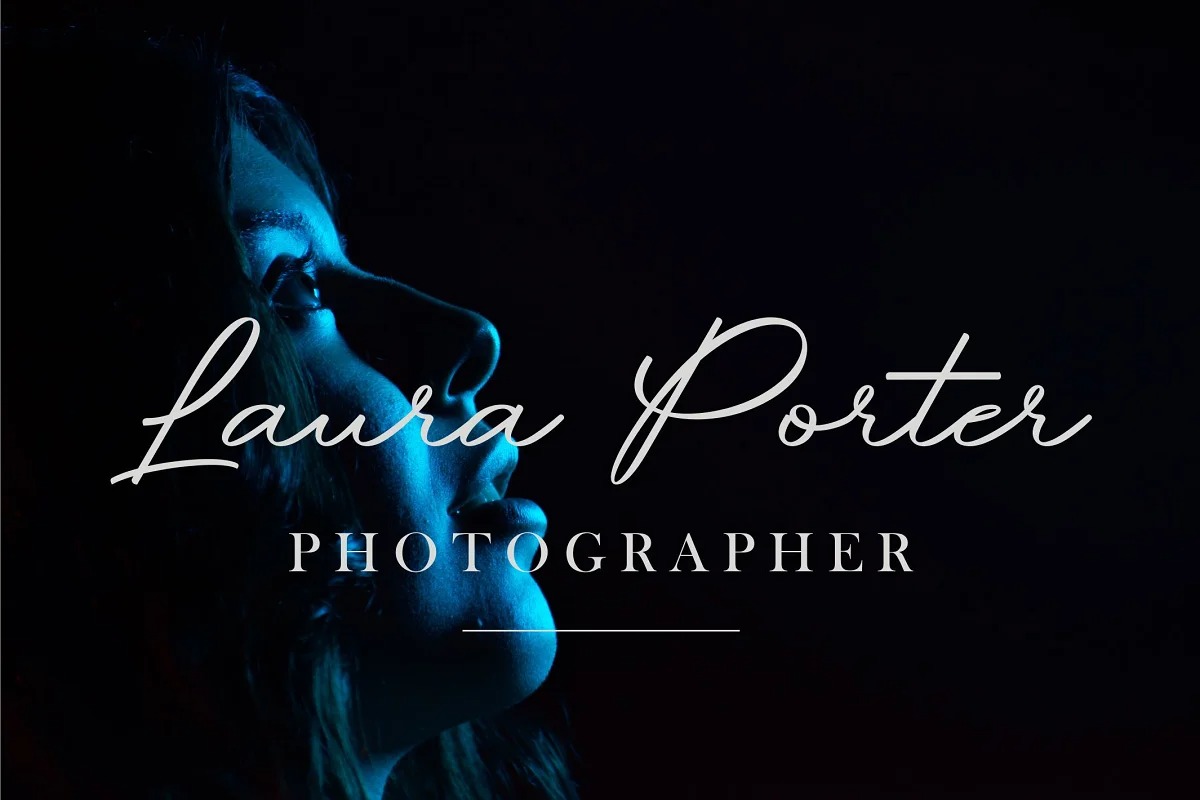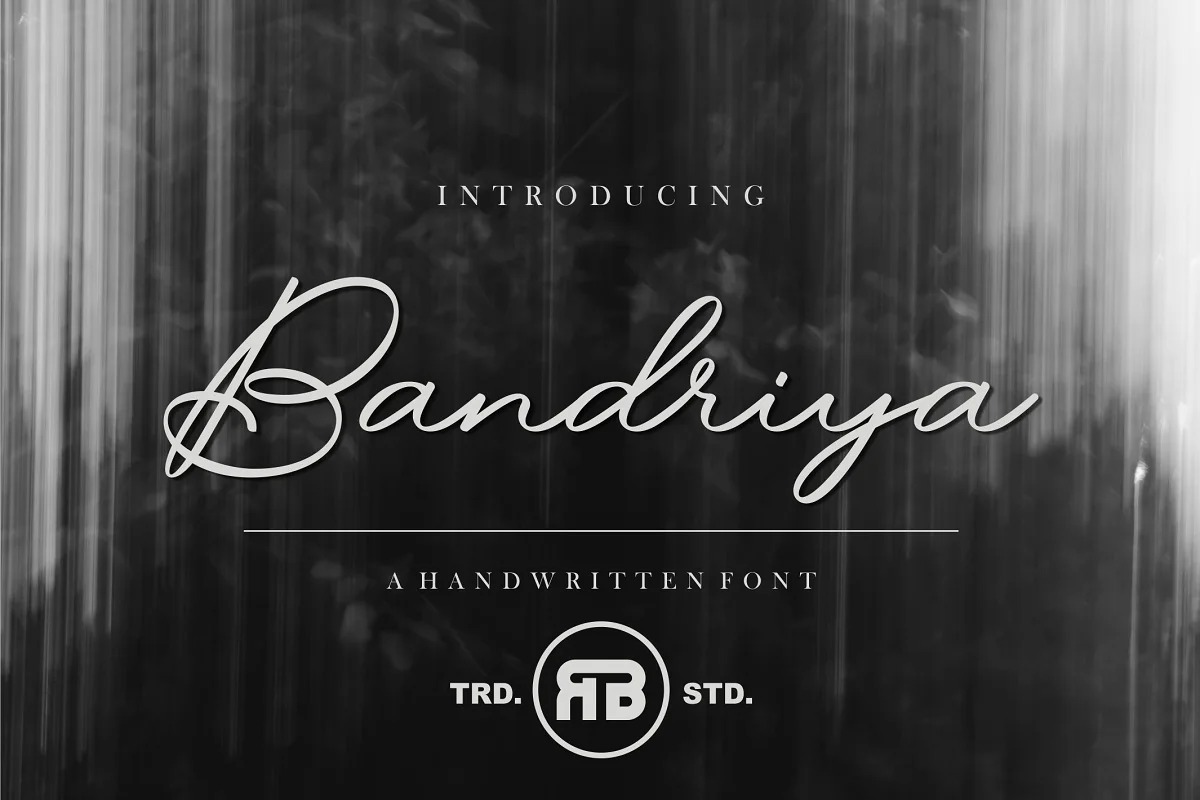
Bandriya Font
Bandriya Handwritten Font is a modern script font created by RGB Studio with elegant and unique style. It will be perfectly used for Branding, Logo Design, Lettering, Logotype, Clothing, Poster, magazine, packaging, posters, shopping bags, t-shirts, book covers, photography, special events and other design project.